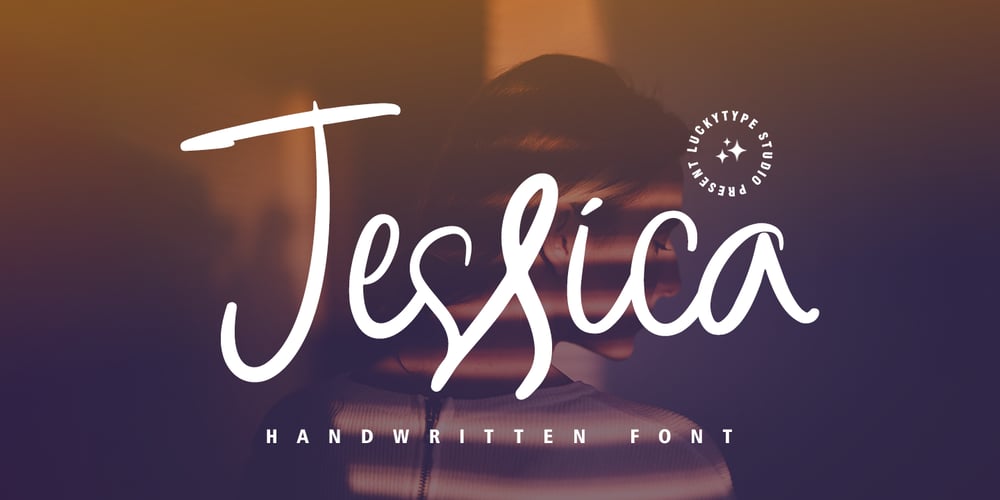
Jessica Script Font Family was designed by Muhammad Fajar and published by Lucky Type. Jessica Script contains 1 styles and family package options. Jessica Script is a beautiful new handwritten font. This font has several ligatures that will beautify your design. Can be used for various needs for your next luxury design. such as logos, product packaging, wedding invitations, branding, headlines, signage, labels, signatures, book covers, posters, quotes, and many more.Thank you very much for viewing.